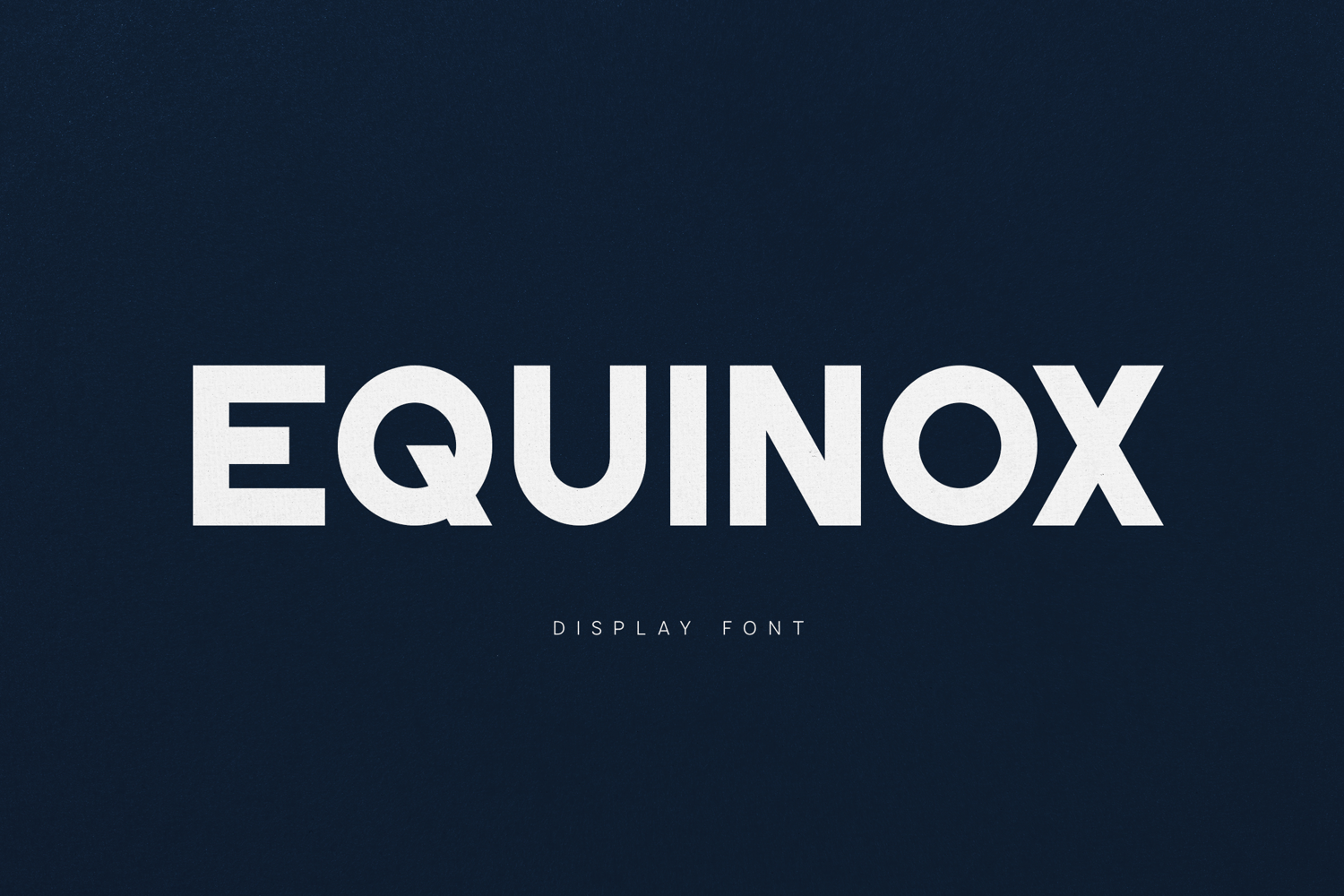
Eqinox Bold Modern Display Font
Eqinox is a bold modern display typeface designed for strong visual impact and contemporary branding. With its geometric structure, clean lines, and confident proportions, Eqinox delivers a powerful typographic presence perfect for modern design projects.
The font features thick strokes, balanced spacing, and a highly readable structure that makes it ideal for headlines, logos, posters, and branding. Its modern aesthetic gives designers the ability to create striking layouts that feel bold, clean, and professional.
Eqinox works perfectly for branding projects, sports graphics, posters, packaging, digital content, website headers, and bold editorial layouts. The strong letterforms ensure excellent visibility across both print and digital applications.
The typeface includes uppercase characters, numbers, punctuation, and extended multilingual support, making it suitable for a wide range of international design projects.
Whether you’re designing a powerful logo, a modern brand identity, or a bold marketing campaign, Eqinox helps your typography stand out with confidence and clarity.